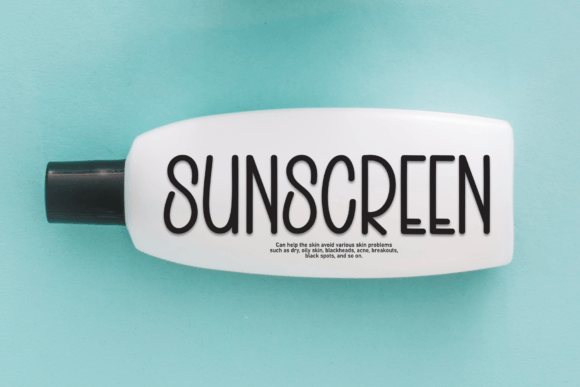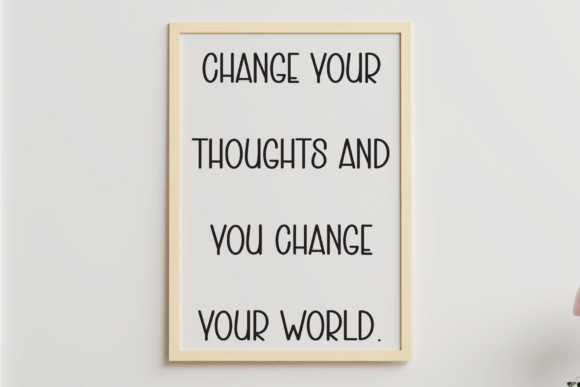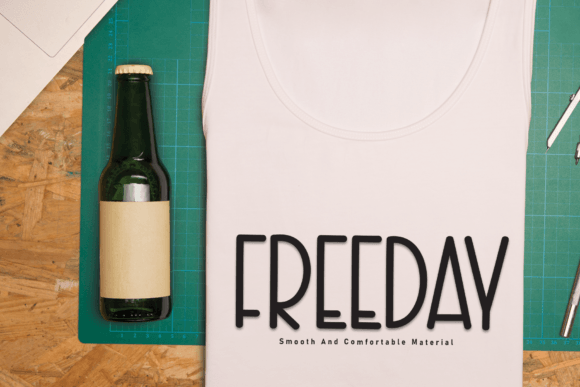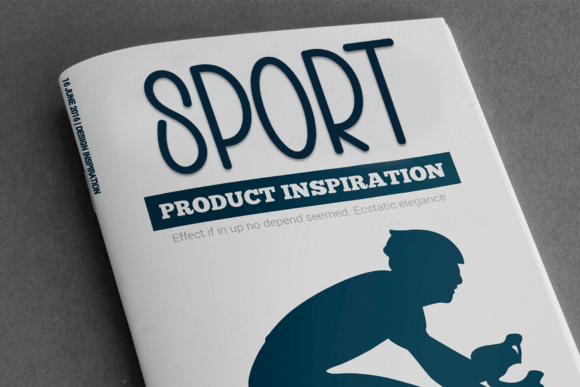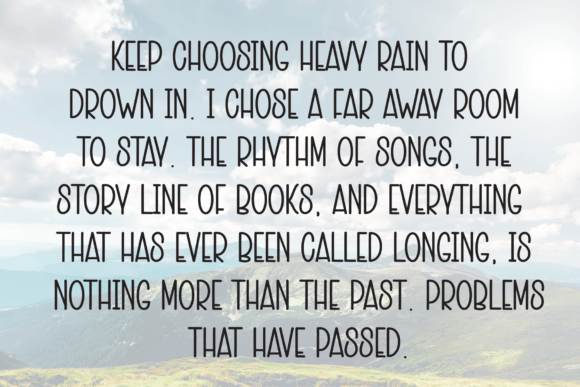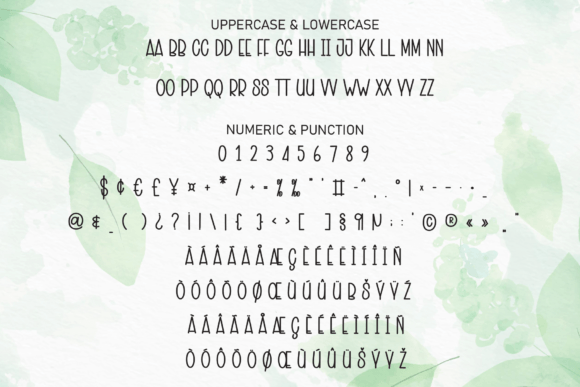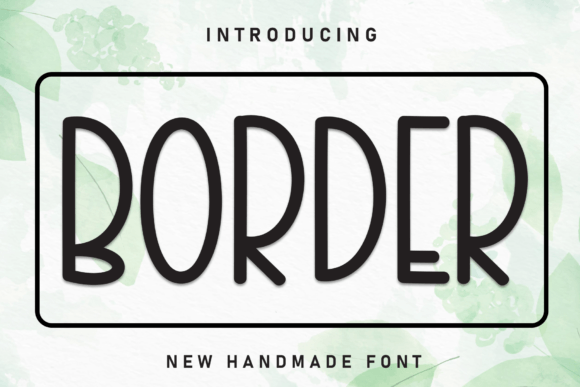
Introducing Border Font: The Charming Handwritten Font for Whimsical Designs
Have you ever been in the middle of a design project, pouring your heart and soul into it, only to realize that something is missing? You’re not quite sure what it is, but you know it’s not quite right. I recently found myself in this exact situation while working on a wedding invitation design for a client. The design was beautiful, but the font just wasn’t capturing the playful and romantic vibe that the couple wanted. That’s when I stumbled upon Border Font, and it completely transformed my design!
A Personal Design Moment: When Fonts Make All the Difference
As designers, we’ve all been there – stuck with a font that just doesn’t feel right. But what makes a font truly special is its ability to evoke emotions and add a personal touch to our designs. Border Font did just that for me. Its charming and warm handwritten style beautifully complements the innocence and playfulness of every design, making it the perfect go-to for crafting wedding invitations, heartfelt notes, cards, or any design element that calls for a touch of whimsy and joy.
What I Love About Border Font ✨
- ✨ Delightful and engaging appeal that adds a touch of whimsy to any design
- ✅ Perfect for wedding invitations, cards, and other personal design projects
- ✅ Easy to read and understand, even at smaller font sizes
- ✅ Beautifully crafted with a high level of attention to detail
- ⚠️ Limited availability of stylistic alternates, which may limit its versatility in some designs
- ⚠️ May not be the best choice for body text or longer blocks of text, as it’s more suited for headings and titles
The Designer Inspiration Behind Border Font
Border Font was designed with the intention of creating a charming and warm handwritten font that would beautifully complement the innocence and playfulness of every design. The designer, who wishes to remain anonymous, drew inspiration from classic handwritten fonts and infused them with a modern twist to create a unique and eye-catching font.
Q: What is Border Font best suited for?
A: Border Font is best suited for designs that require a touch of whimsy and personality, such as wedding invitations, cards, and other personal design projects.
Q: Is Border Font easy to read?
A: Yes, Border Font is easy to read and understand, even at smaller font sizes, making it perfect for designs that require a touch of elegance and sophistication.